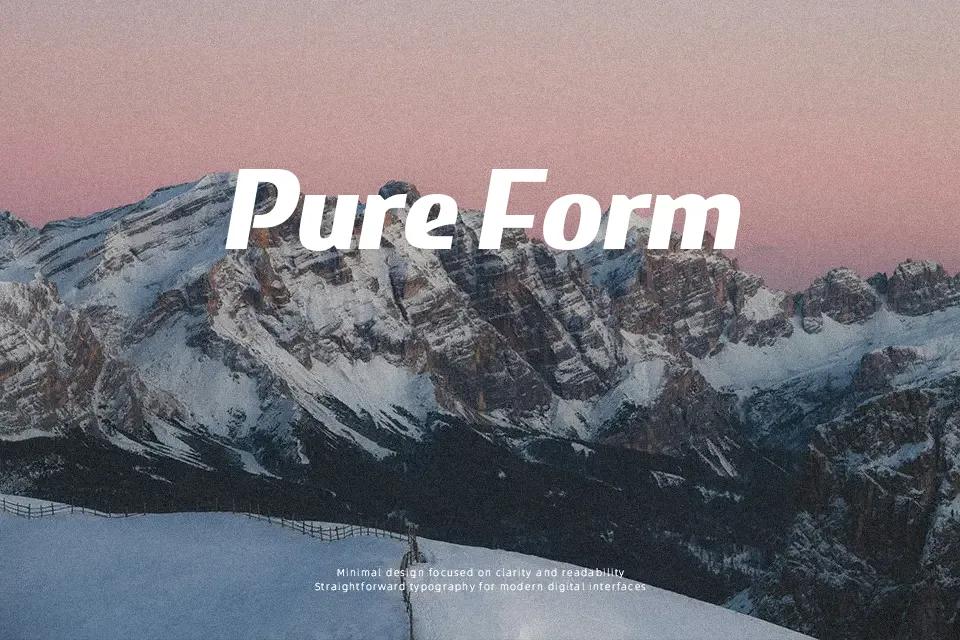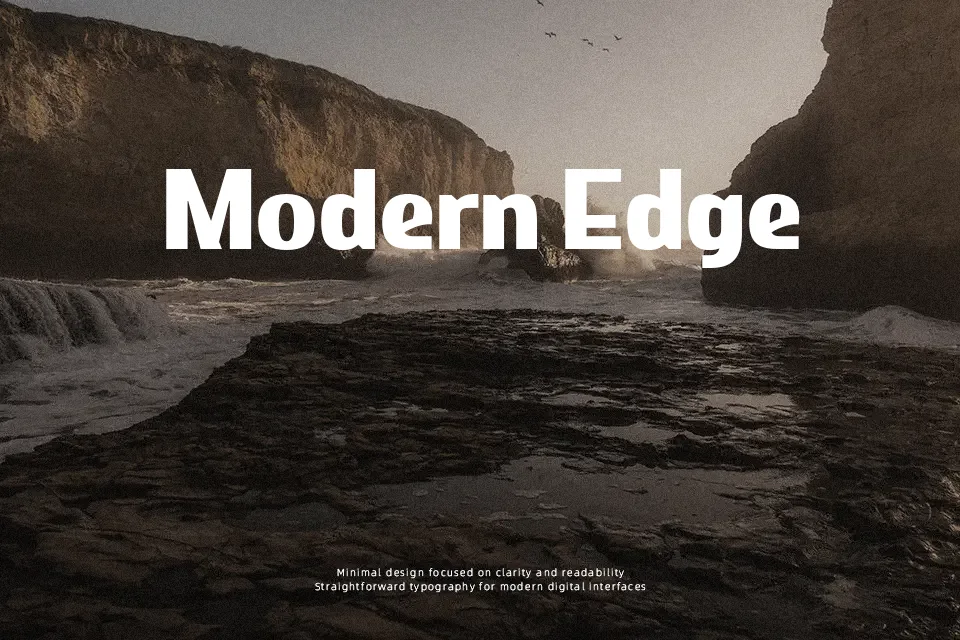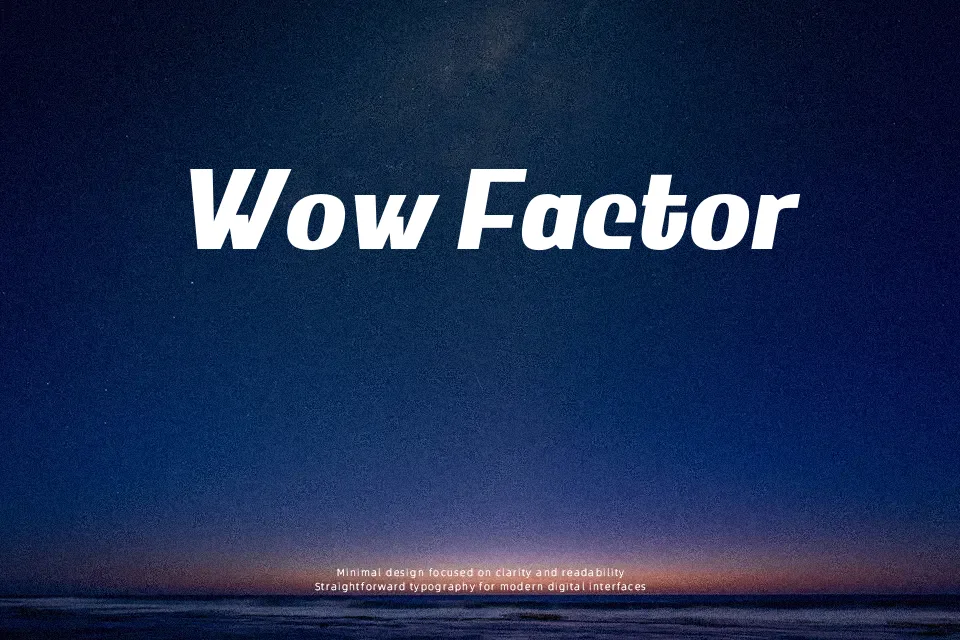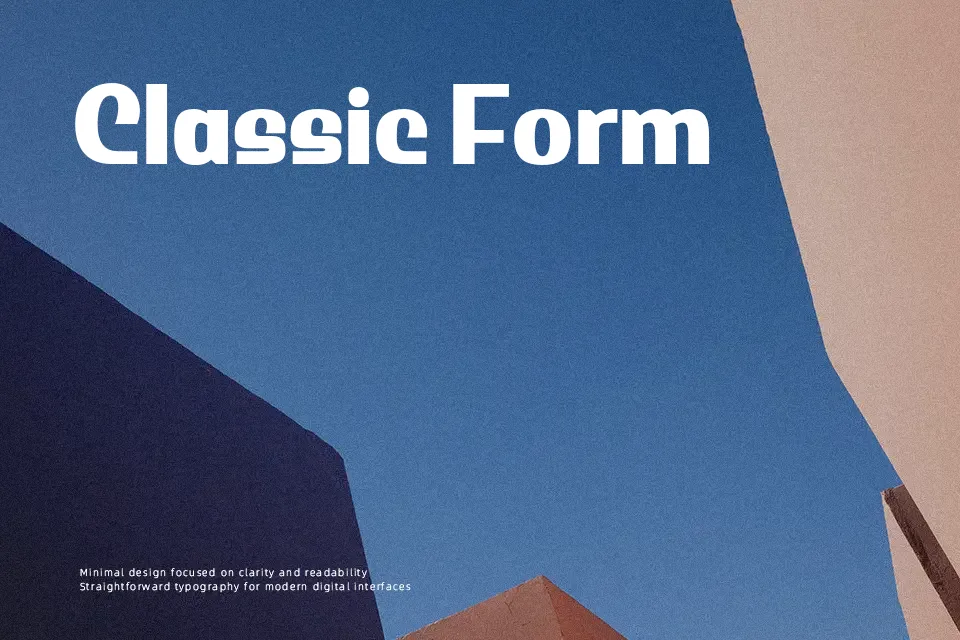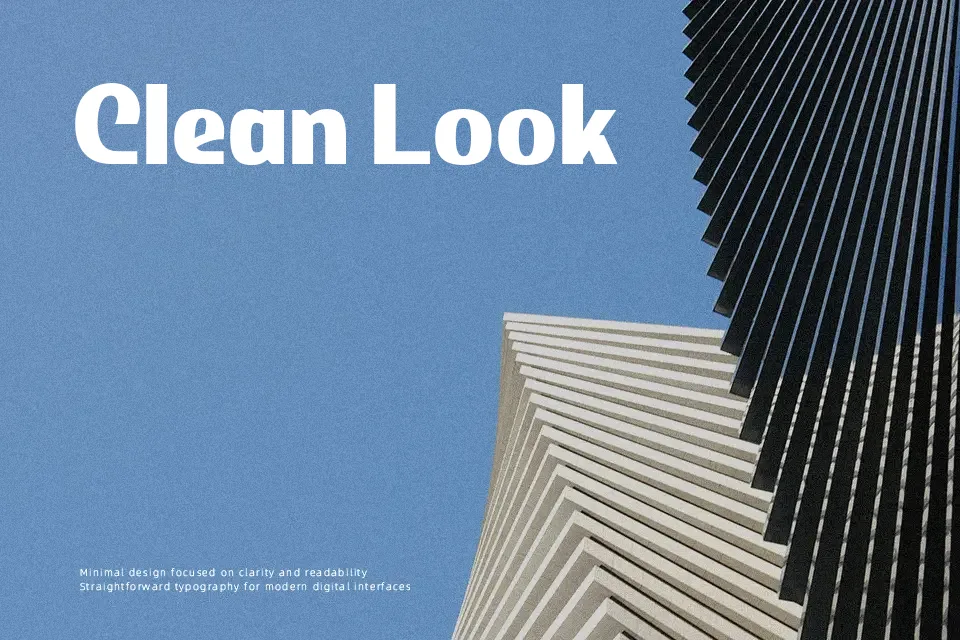
Bladus Font
Bladus carries a heavy, semi-expanded structure that dominates the canvas with unapologetic intensity. The thick strokes and widened proportions deliver a commanding aesthetic, ensuring headlines maintain high legibility even from a distance. Its sturdy, unyielding forms convey raw energy and modern strength. This typeface excels when applied to high-octane branding, aggressive sports apparel, or action-oriented editorial spreads. It thrives as a focal point where typography needs to carry the visual weight of the entire composition. Conversely, the dense letterforms become entirely unreadable at smaller point sizes. Designers should avoid applying this heavy style to long paragraphs or complex user interfaces, as the thick strokes will inevitably merge and frustrate the reader.
Action movie title sequences
Aggressive sports team branding
High-impact gaming event graphics
Dense magazine body copy
Minimalist corporate user interfaces
Delicate event stationery
Perfect for branding, gaming, and headline, with a bold and display style.